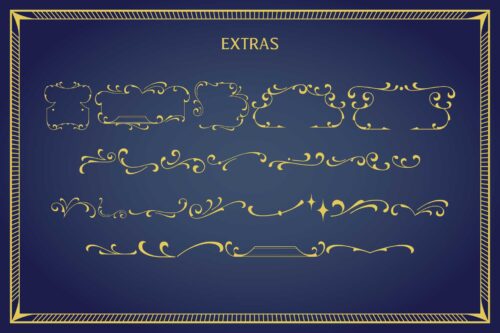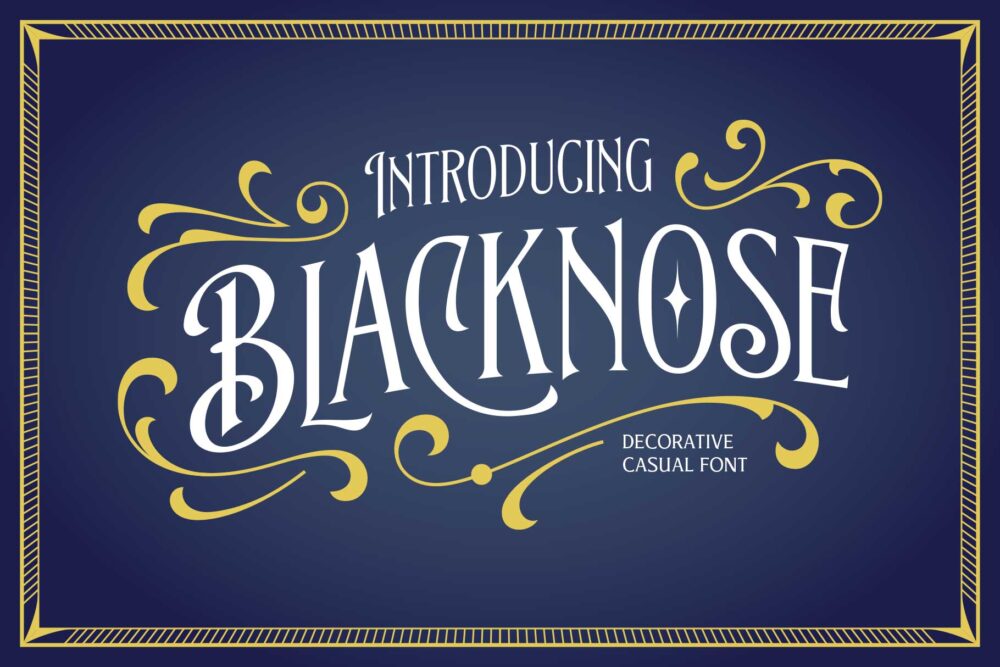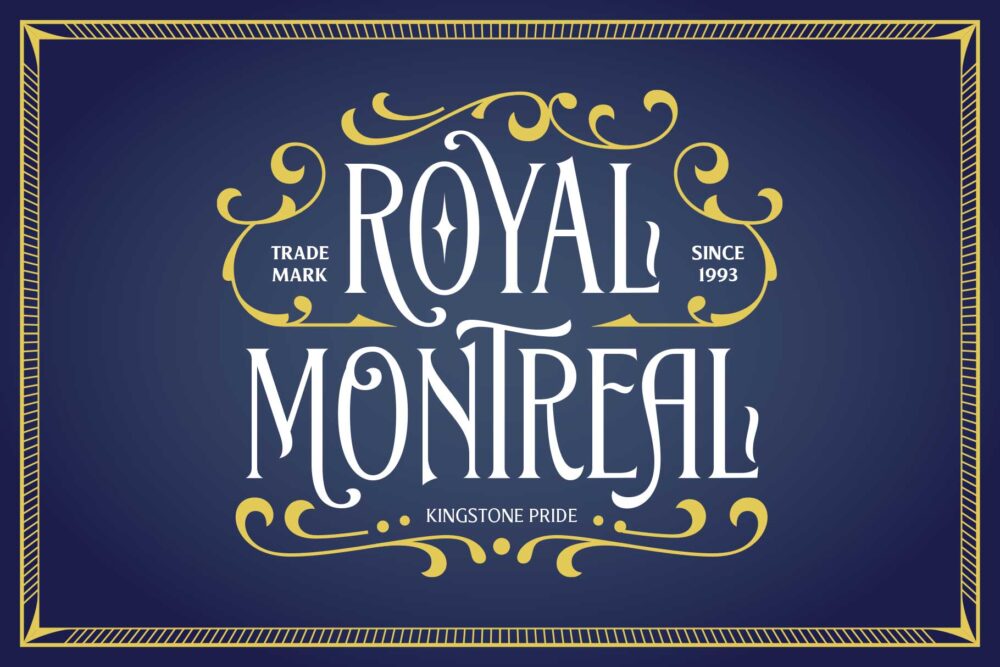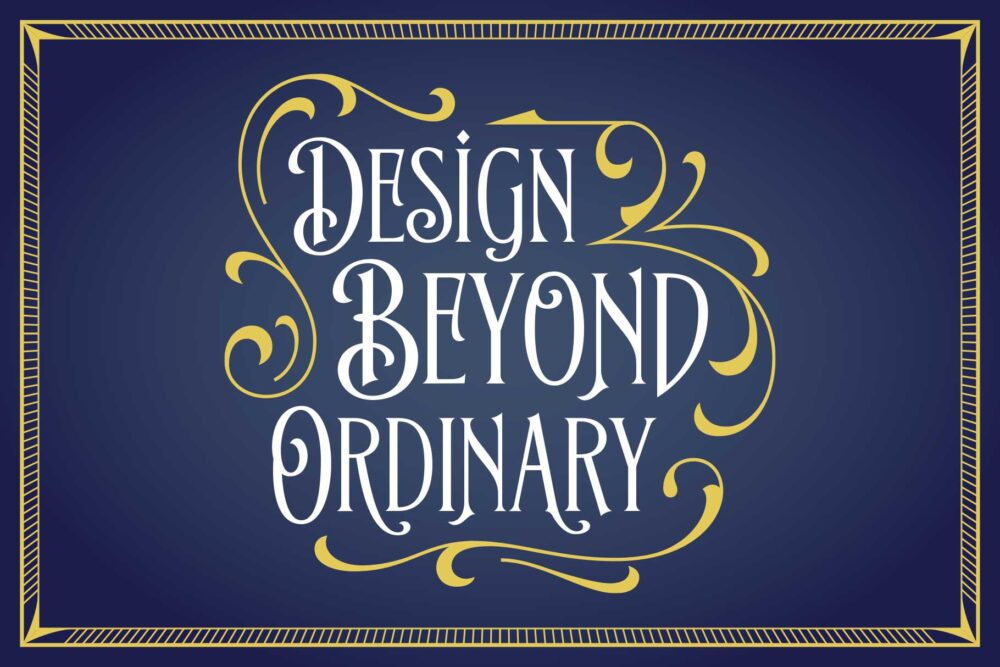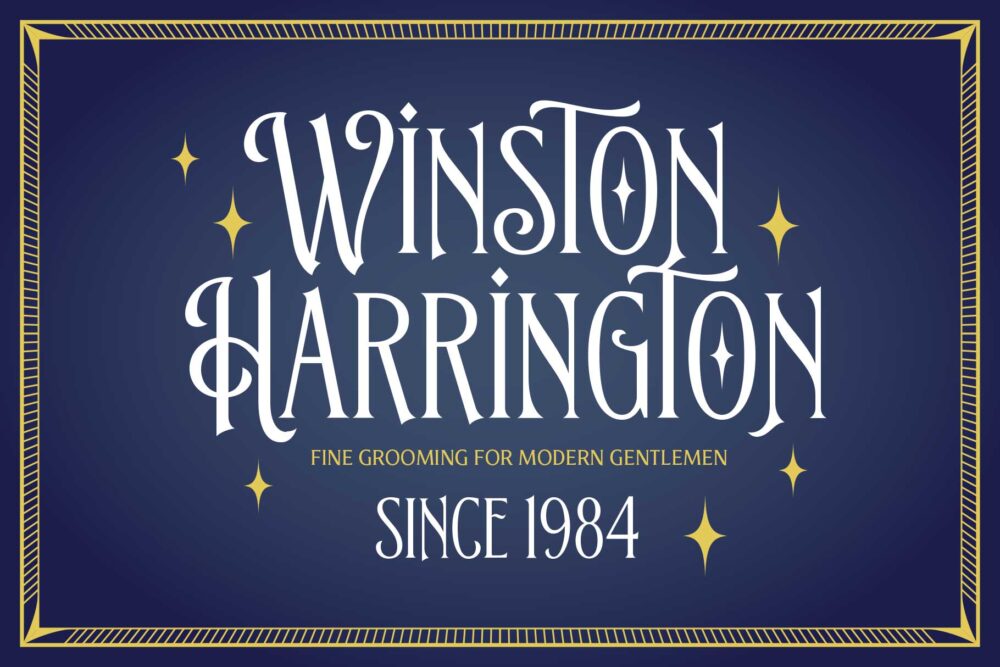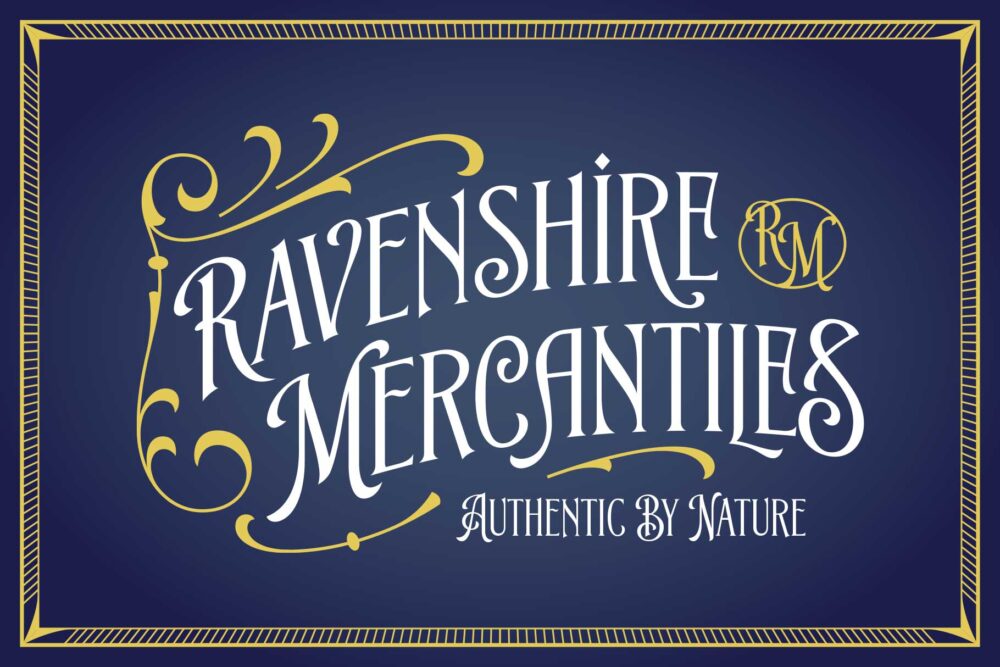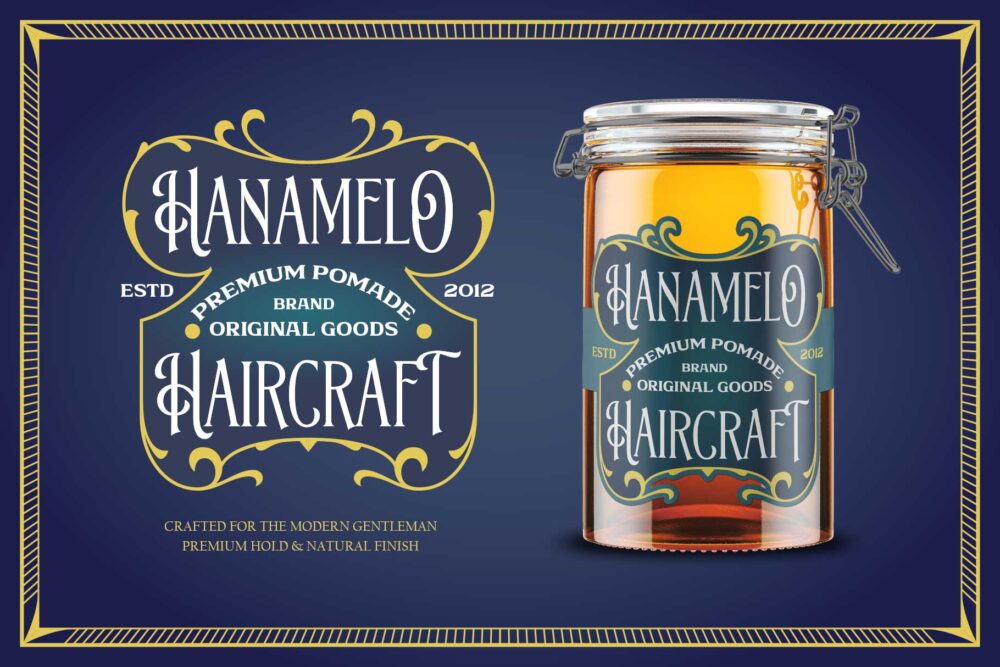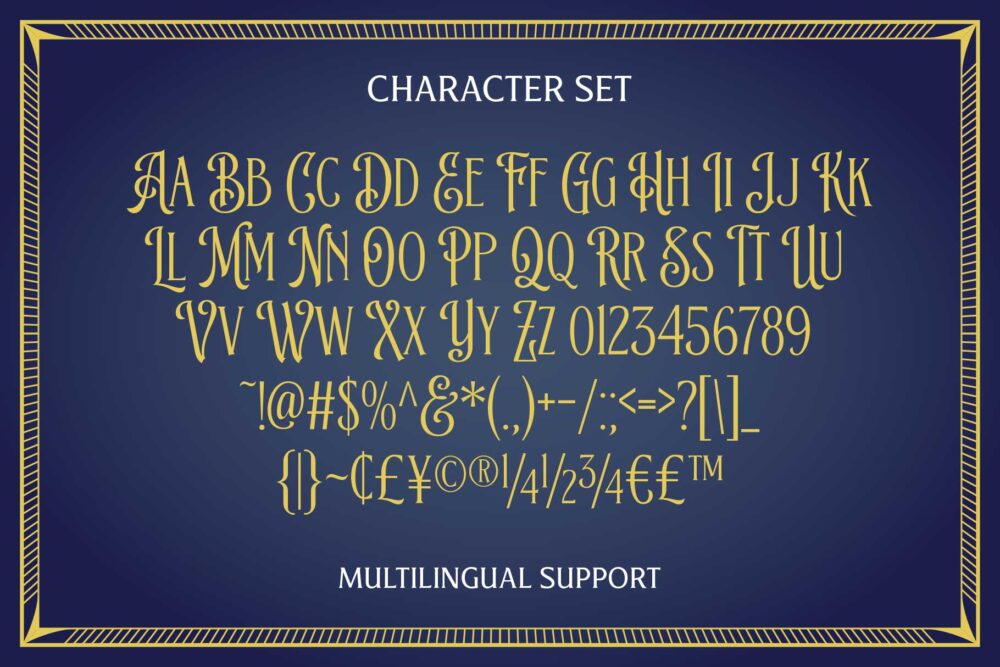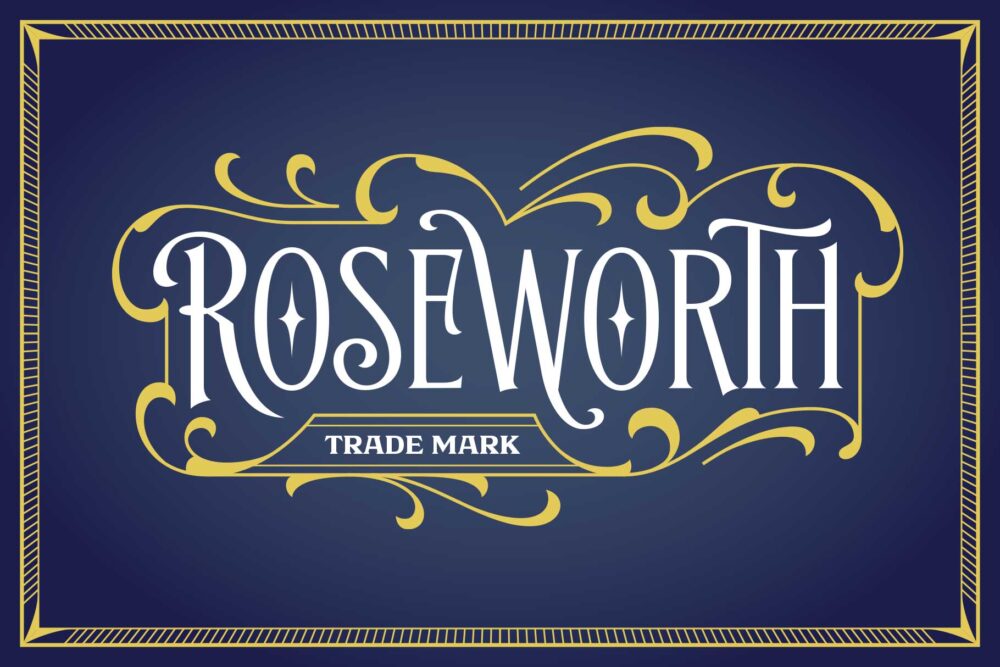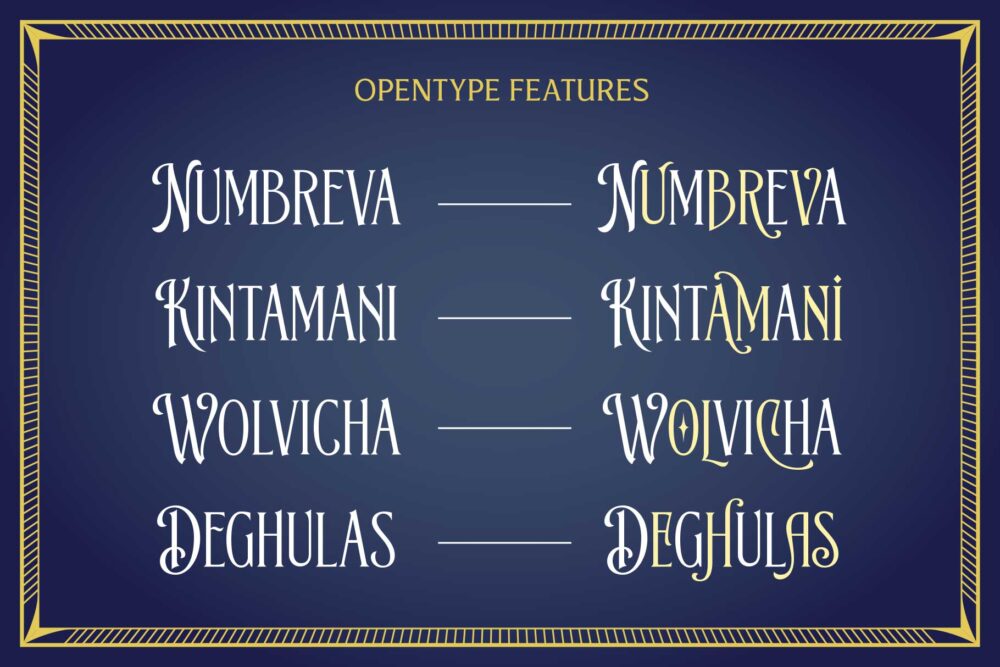
Blacknose vintage-inspired display font with elegant Victorian details
Blacknose
Blacknose Extras
Blacknose is a vintage-inspired decorative display font that combines timeless elegance with rich ornamental details. Influenced by classic signage and heritage labels, its refined letterforms bring a luxurious and nostalgic character to any design.
Designed with expressive alternates and distinctive special characters, Blacknose gives you the freedom to create unique and sophisticated typographic compositions. From branding and packaging to editorial and logo design, every letter is crafted to make a lasting impression.
To complete the vintage aesthetic, Blacknose includes beautifully drawn ornaments and decorative extras, making it a complete toolkit for elegant and premium designs. Perfect for labels, signage, decorations, posters, barbershop branding, restaurants, packaging, and classic-inspired projects.
• Uppercase
• Small caps
• Numbers & symbols
• Punctuations
• Stylistic set 01 – 02
• Accented characters
Blacknose – Decorative Victorian Font